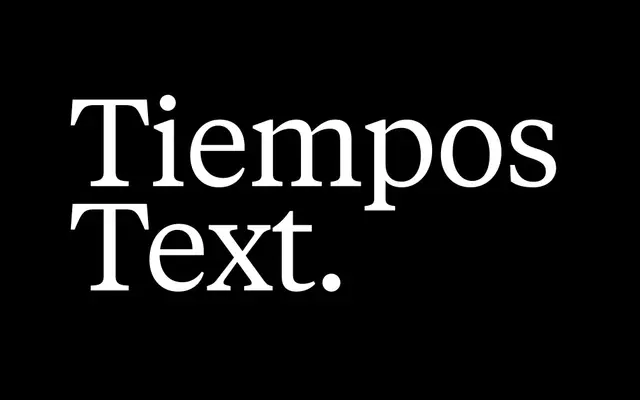
Tiempos Text
Klim Type Foundry · Kris Sowersby · 2010
Tiempos Text specimen from Klim Type Foundry
A workhorse text serif drawing on Plantin and Times, tuned for legible, economical body copy in editorial and news settings.
A pragmatic transitional serif by Kris Sowersby that updates the Plantin and Times News Roman lineage for contemporary, economical typesetting. The Tiempos system runs across three optical sizes (Text, Headline, Fine), so the same family carries you from body copy to mastheads without breaking voice. Reads quiet at small sizes and steady at large, which is why news, longform and editorial brands reach for it when the serif needs to stay out of the way.
Klim classifies it as Modern: Transitional/Realist; takes the functionality of Plantin and Times and updates it for contemporary, economical typesetting.